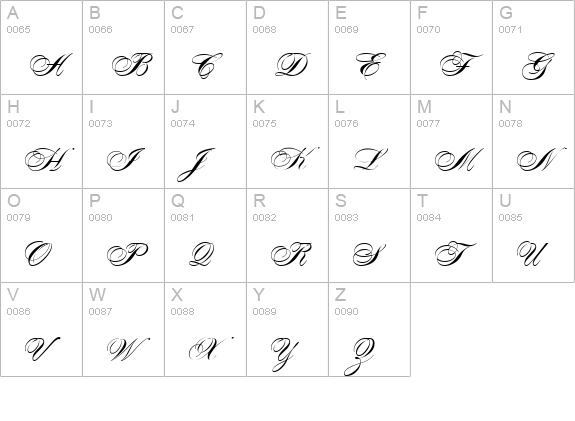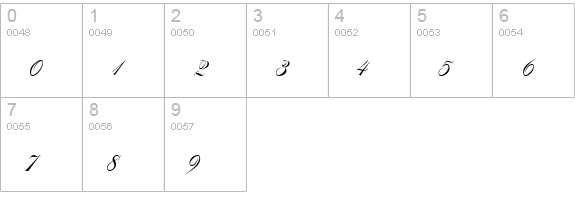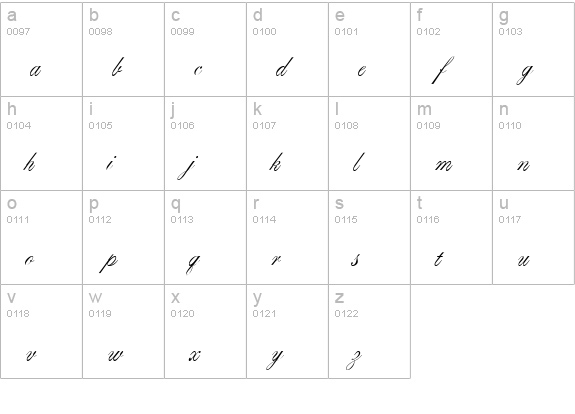
Alexandra Script Font Details
Alexandra Script is a beautifully crafted font that exudes elegance and sophistication. Its delicate curves and flowing lines give it a sense of timeless charm, making it perfect for adding a touch of luxury to any design project. Whether you're creating wedding invitations, branding materials, or simply looking to add a touch of class to your work, Alexandra Script is sure to impress. The best part? Alexandra Script is completely free to download at FontsMarket.com, making it accessible to designers of all levels. With its extensive character set and smooth, flowing style, this font is a versatile choice for a wide range of projects. Add a touch of refinement to your designs with Alexandra Script today.